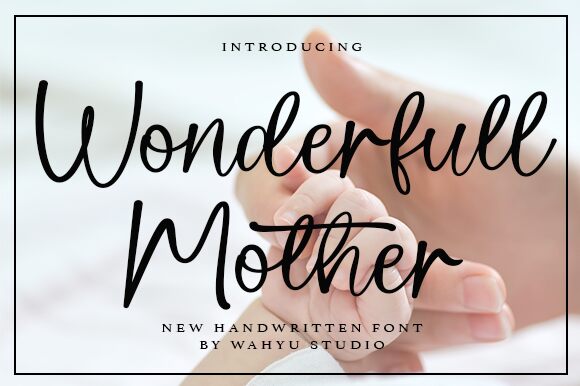
Wonderfull Mother
Wonderfull Mother, a creation of Wahyu Studio, stands out as a semi-light handwritten font that exudes charm and personality. With its fluid and dynamic strokes, this font captures the essence of personal touch and warmth, making it ideal for projects that require an intimate and inviting feel. The gentle curves and elegant lines suggest a level of sophistication while retaining the spontaneity typical of a handcrafted script.
The visual appeal of Wonderfull Mother lies in its balance between readability and artistic flair. Each character is crafted with care, ensuring that texts appear cohesive yet distinctive when set in this typeface. This delicate balance makes it an excellent choice for greeting cards, branding materials, quotes, or any creative work seeking to convey authenticity with a stylish twist.
With its semi-light weight, Wonderfull Mother is versatile enough to complement various design aesthetics without overpowering other elements. Whether it's adding a personal signature to your project or creating emphasis within a composition, Wonderfull Mother offers endless possibilities for designers looking to infuse their work with heartfelt elegance.